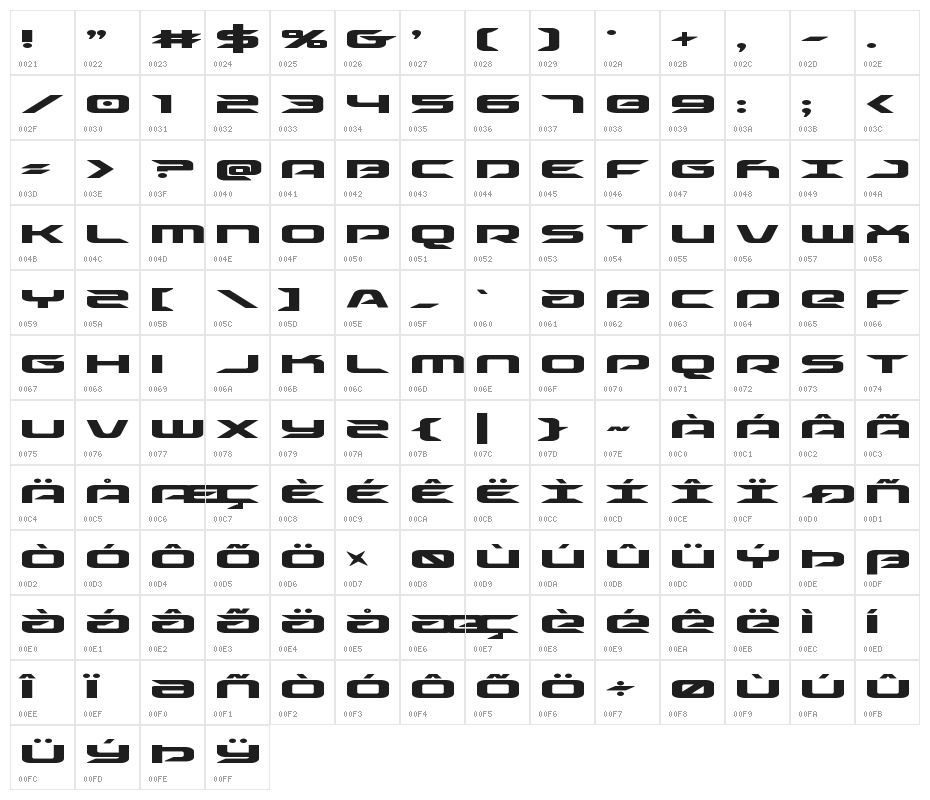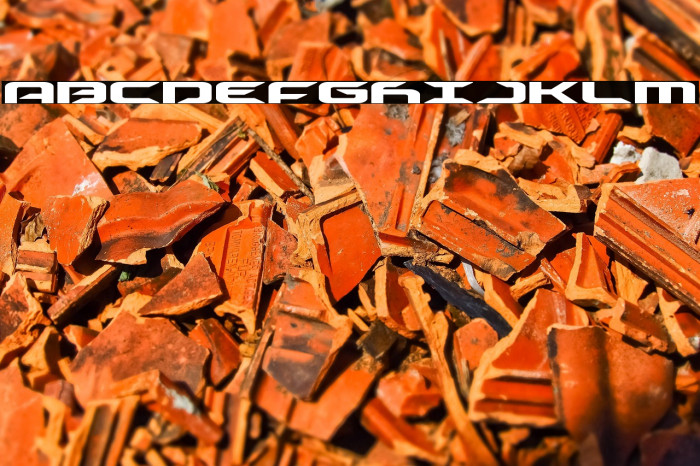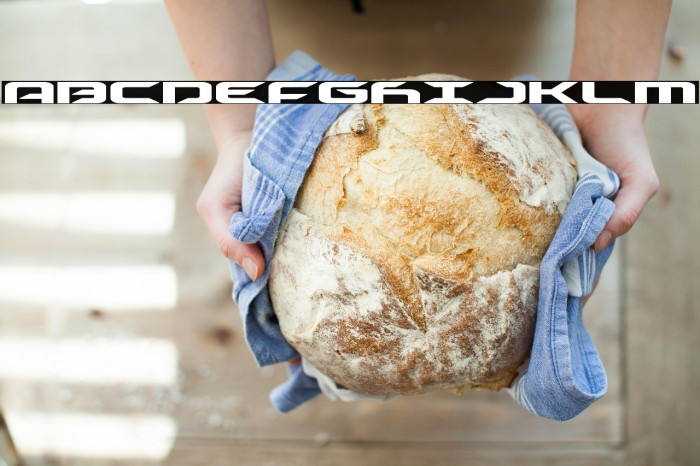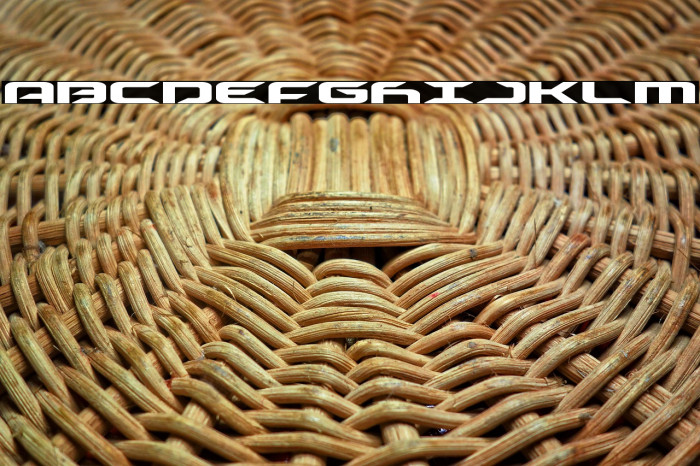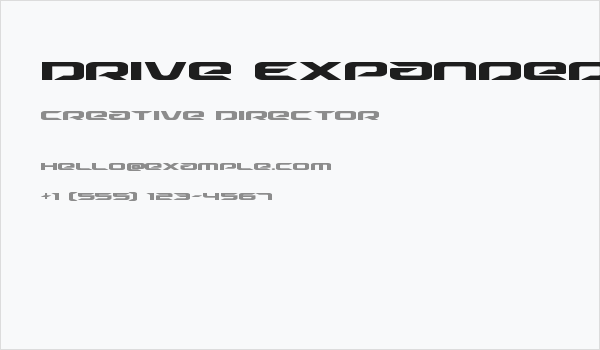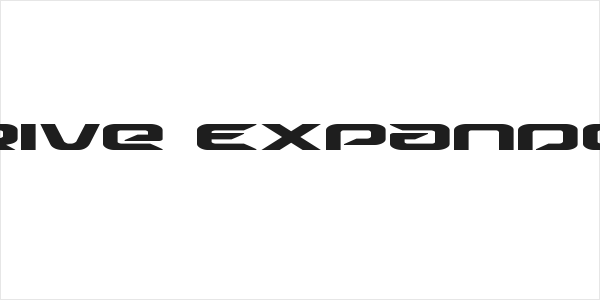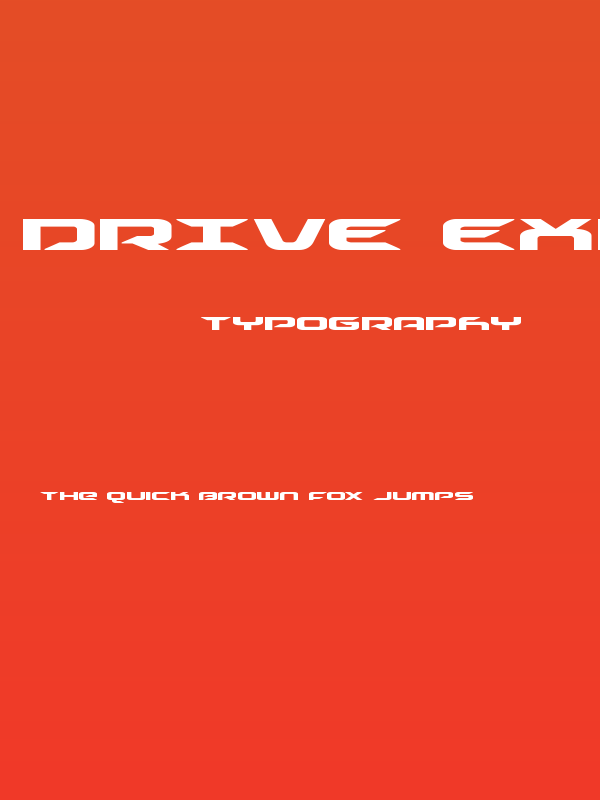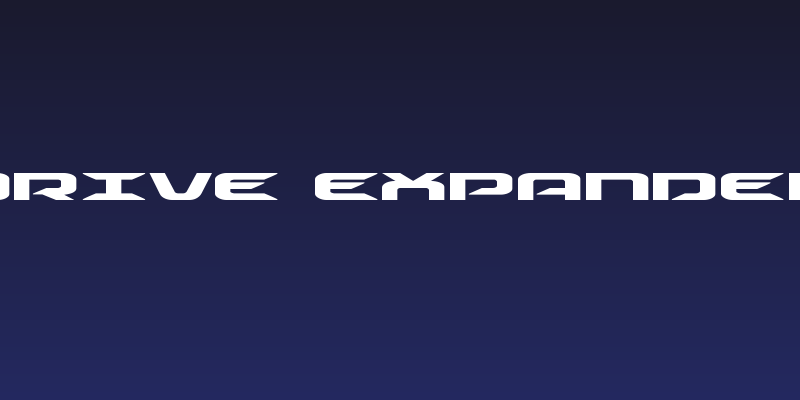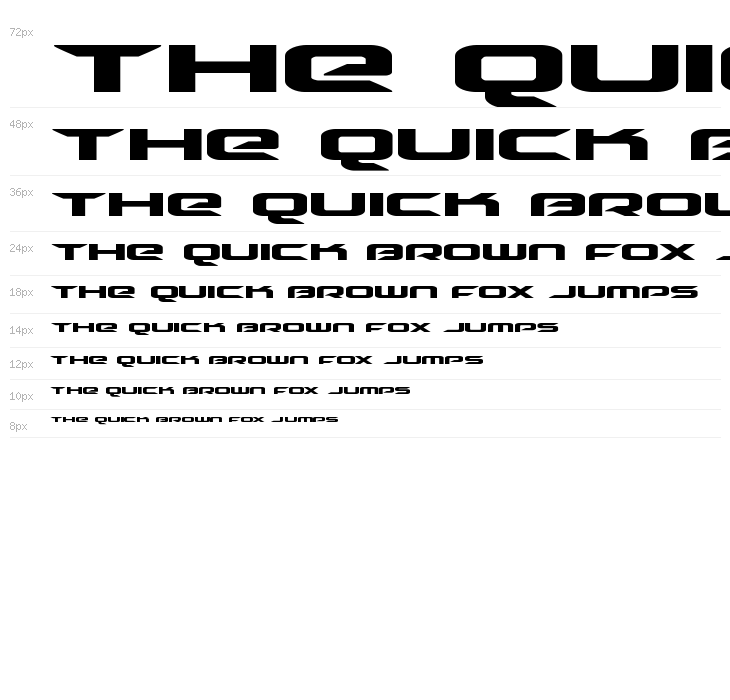
Drive Expanded Font
Drive Expanded Description
This font features a futuristic and geometric design with sharp angles and a bold presence. The characters are uniquely stylized with cut-out sections and a consistent width, giving it a modern and edgy appearance. The uppercase and lowercase letters maintain a uniform style, while the numbers and special characters complement the overall aesthetic. The design is highly legible, making it suitable for attention-grabbing headlines and logos. Its distinct look is ideal for projects that require a contemporary and innovative touch.
| Proposed Projects | Ideal for technology branding, sci-fi movie posters, video game titles, and modern advertising campaigns. |